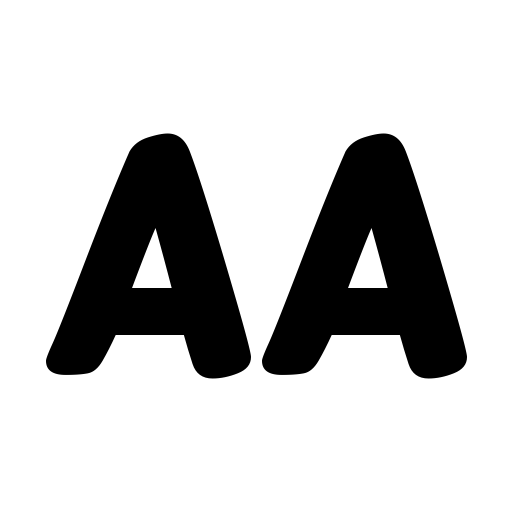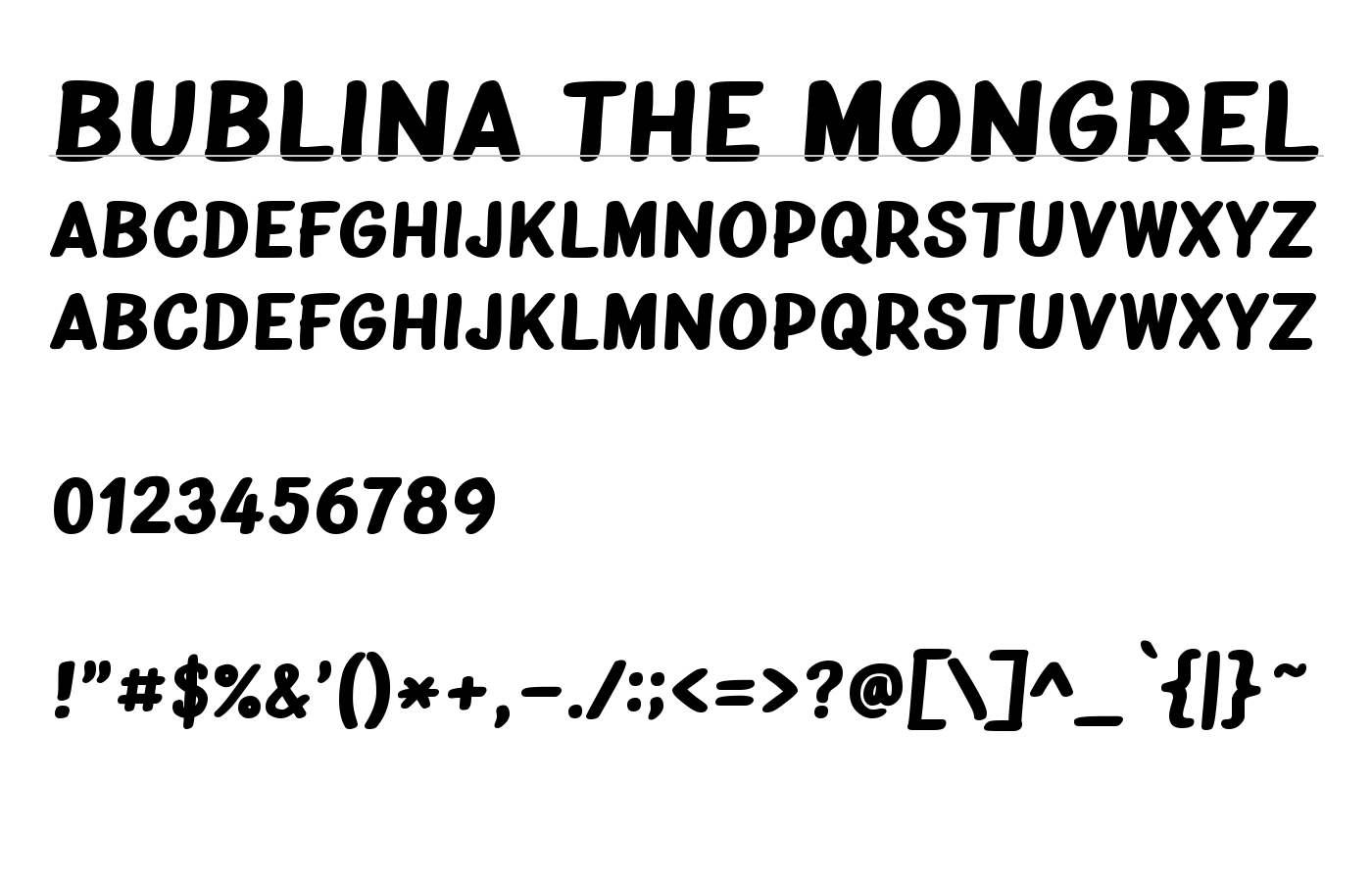
Bublina the Mongrel is a bold, playful sans serif font with a rounded, slightly quirky character that feels both friendly and energetic. Its informal style and slightly condensed letterforms make it perfect for fun, approachable branding, children’s materials, casual headlines, and creative projects that want to convey warmth and personality. This font’s lively shapes and clear legibility make it a great choice for adding a cheerful, unique voice to logos, posters, and websites.
Bublina the Mongrel Font
About Bublina the Mongrel Font
| Font family | Bublina the Mongrel Font |
| Designer | Vít Čondák |